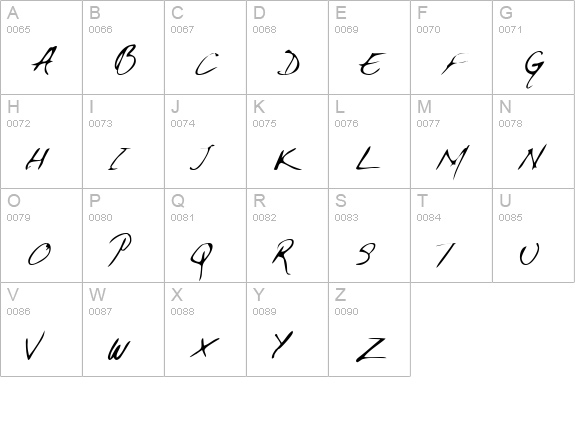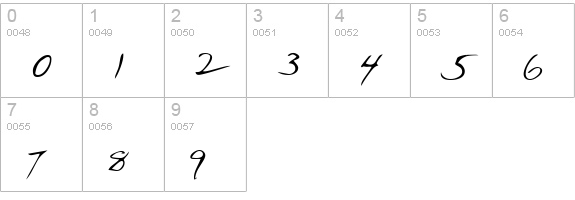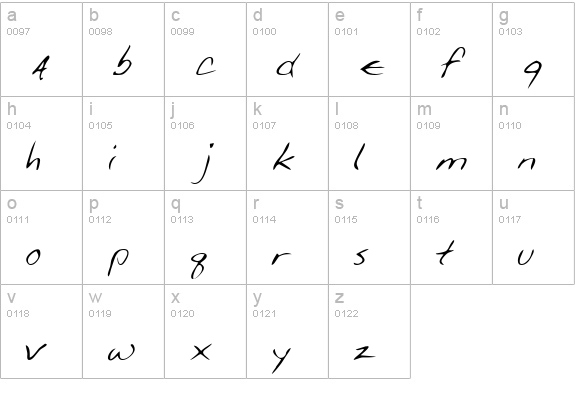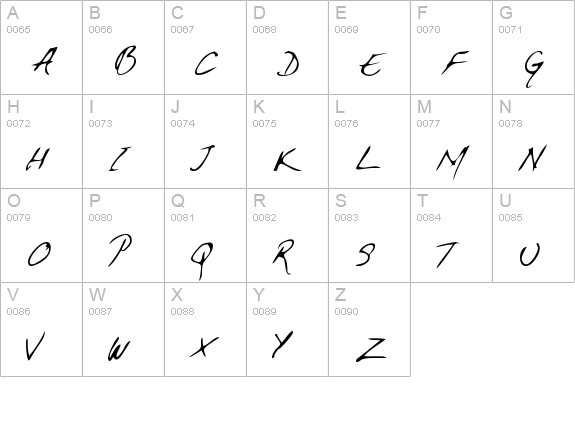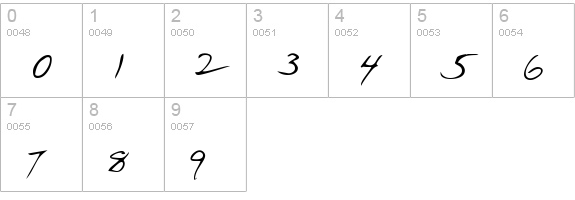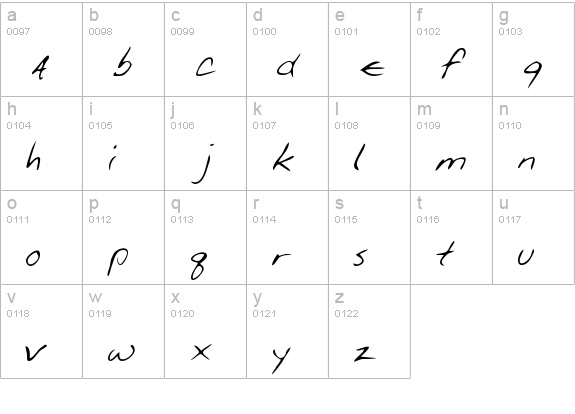
GiffordsHand Font Details
GiffordsHand font is a charming and elegant typeface that exudes a sense of warmth and personality. Its flowing lines and gentle curves give it a handwritten feel that is perfect for adding a personal touch to any project. This versatile font is ideal for a wide range of design applications, from invitations and greeting cards to branding and packaging. What makes GiffordsHand font even more appealing is that it is available for free download at FontsMarket.com. This means that you can easily access this beautiful font and use it in your projects without any cost. With its timeless appeal and easy readability, GiffordsHand font is sure to become a favorite choice for designers looking to add a touch of elegance to their work.